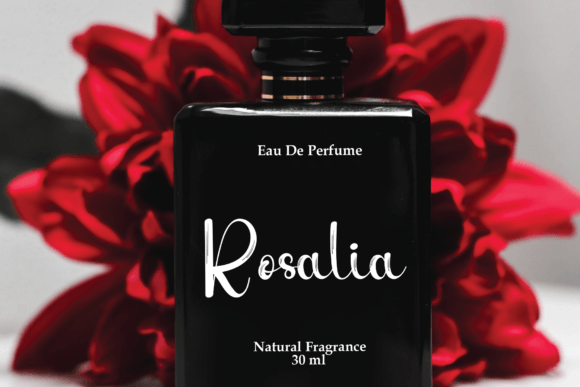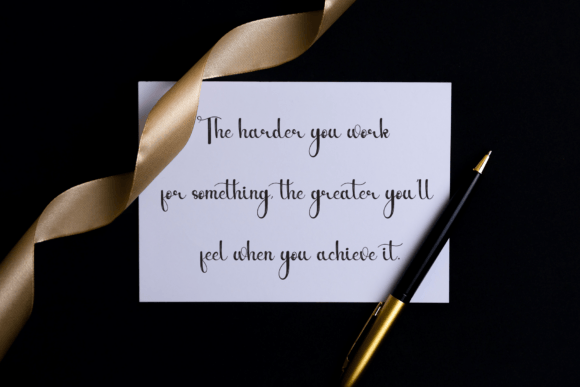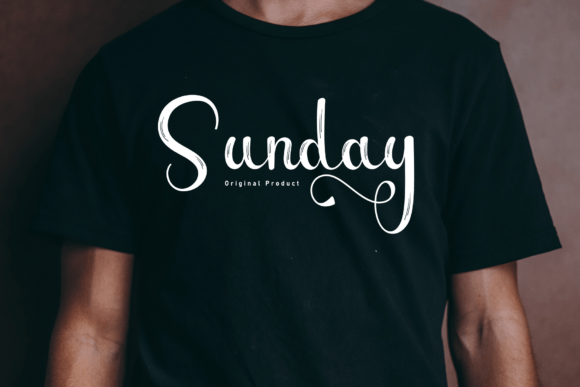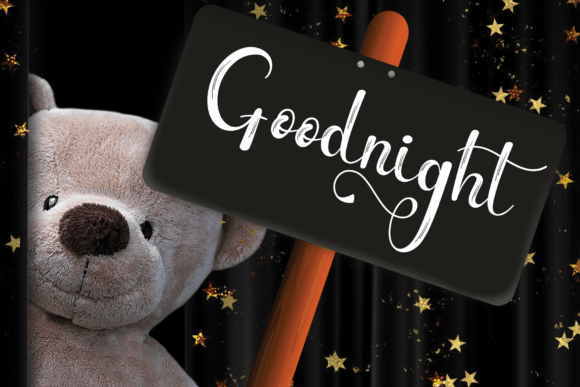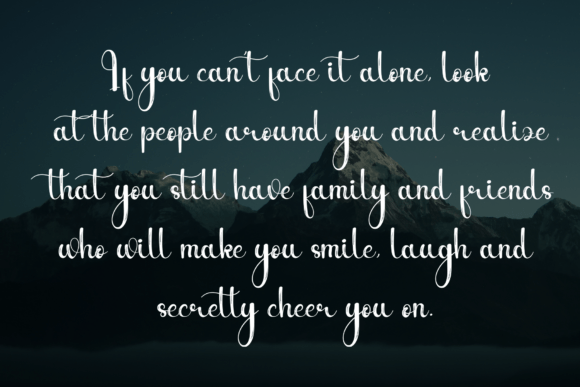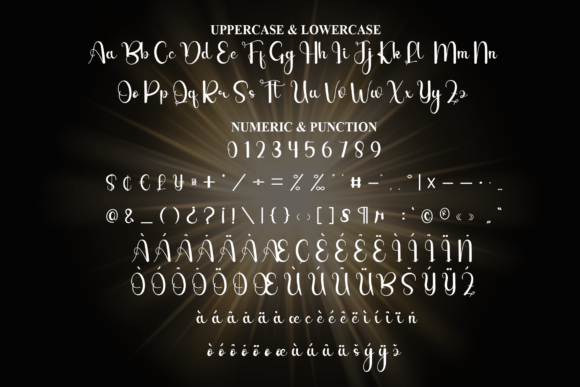
Discover the Secret to Elevating Your Designs with Bright Font
As a designer, have you ever stared at a blank canvas, struggling to find the perfect font to bring your vision to life? I know I have. It’s that moment of frustration, when you want to add a touch of elegance and charm to your design, but the right words just won’t come together. That’s where Bright Font comes in – a stunning handwritten script font that adds a personal and sophisticated touch to any project.
With its flowing, graceful curves, Bright Font is perfect for invitations, logos, and branding. Its delicate strokes bring warmth and creativity to your designs, making it a valuable asset for any designer. Whether you’re working on a wedding invitation or a company logo, Bright Font is sure to make your projects stand out.
Bright Font Key Features
- Font Styles: Bright Font offers a range of font styles, including sans-serif, serif, and script fonts, each with its own unique characteristics and nuances.
- Unique Characteristics: Features a distinctive, modern design with a high level of x-height and contrast, making it highly legible and visually appealing.
- Scalability: Designed to be highly scalable, ensuring that the font remains crisp and clear even at small sizes or when zoomed in.
Bright Font Review
I recently had the chance to work with Bright Font, and I have to say it’s a mixed bag. Here’s my honest review.
- Unique Character: Bright Font has a distinctive personality that can really make your designs stand out.
- High-Quality Rendition: The font looks crisp and clear, even at smaller sizes.
- Wide Range of Styles: From bold to light, there’s a style to suit every design need.
- Limited Readability: While the font is eye-catching, it can be a bit difficult to read, especially in long blocks of text.
- Not Ideal for Body Text: Due to its unique design, Bright Font isn’t the best choice for body text – it’s better suited for headlines and titles.
Overall, I’d say Bright Font is a great choice for designers looking to add some visual interest to their designs. However, it’s not a one-size-fits-all solution. Be sure to use it judiciously and in the right context to get the best results.
Bright Font: A Practical Application Guide
Tips for Getting the Most Out of Bright Font
To maximize the impact of Bright Font, consider the following:
- Contrasting background: Use Bright Font on a dark or muted background to create visual contrast.
- Color combinations: Pair Bright Font with complementary colors to create a striking visual effect.
- Font size: Adjust the font size to create a balance between readability and visual impact.
Bright Font is ideal for:
- Headings and titles: Use Bright Font to draw attention to headings and titles.
- Call-to-actions: Bright Font can be used to create eye-catching call-to-actions.
- Branding: Use Bright Font consistently across your branding materials for a cohesive look.
Alternatives to Bright Font for Designers
Open Sans is a popular sans-serif font designed by Steve Matteson. It’s highly legible and suitable for both body text and headings. Use it when you want a clean, modern look that’s easy to read. Compared to Bright Font, Open Sans has a more neutral tone and is more versatile in its applications.
Montserrat is a geometric sans-serif font designed by Julieta Ulanovsky. It’s inspired by urban typography and has a strong, modern feel. Use it when you want to add a touch of sophistication and urbanity to your design. Compared to Bright Font, Montserrat has a more edgy feel and is better suited for titles and headings.
Lato is a sans-serif font designed by Łukasz Dziedzic. It’s highly legible and has a friendly, approachable feel. Use it when you want a font that’s both modern and inviting. Compared to Bright Font, Lato has a softer tone and is more suitable for body text and titles that require a personal touch.